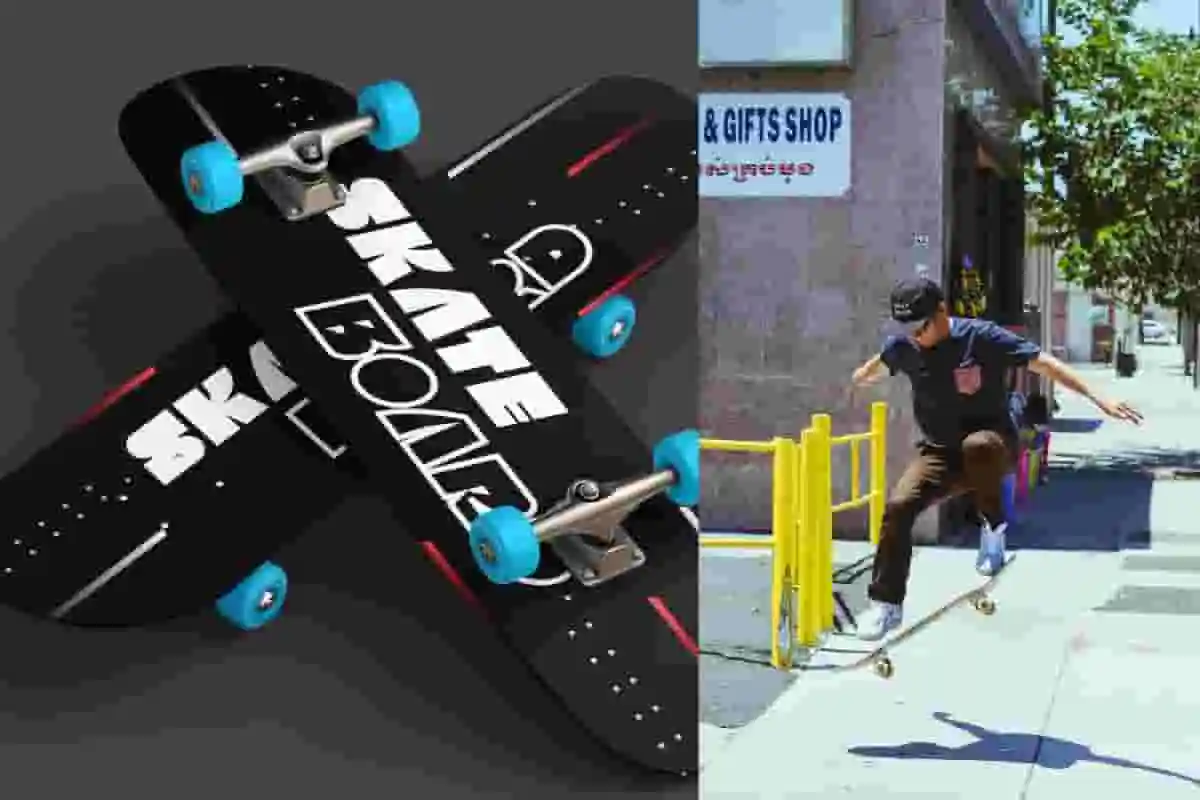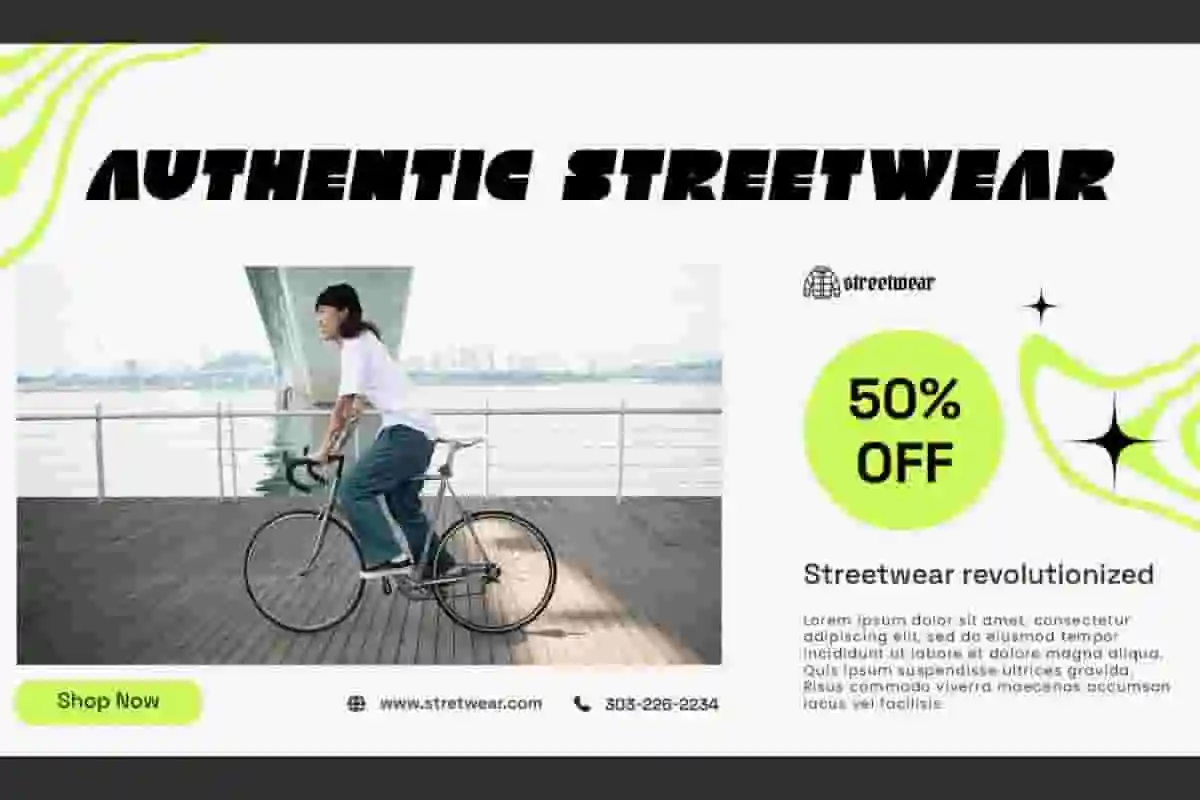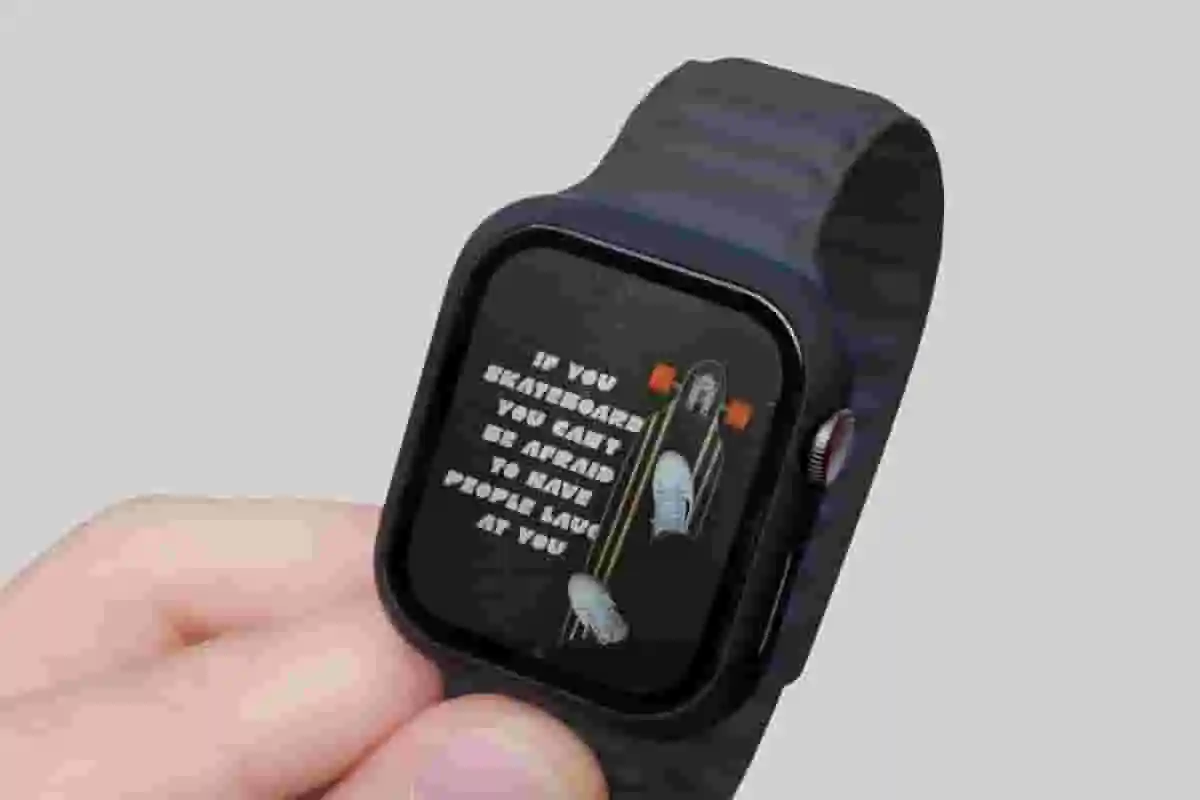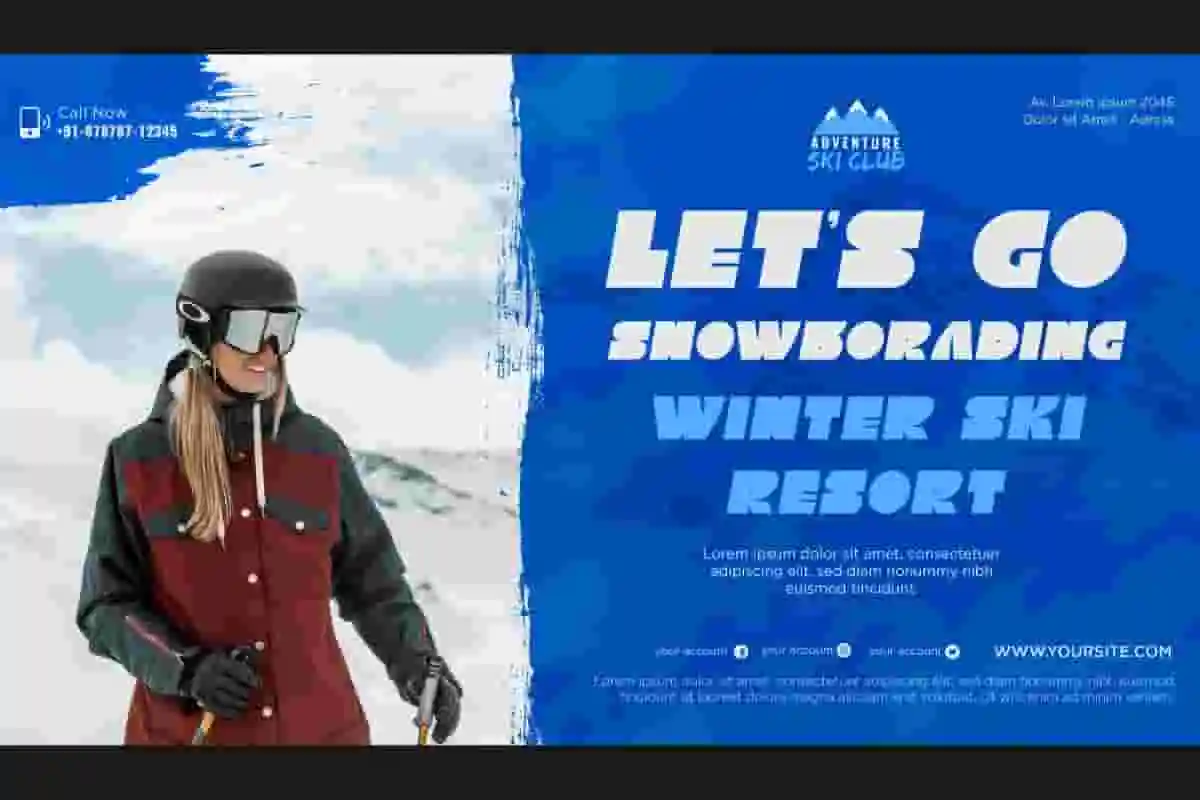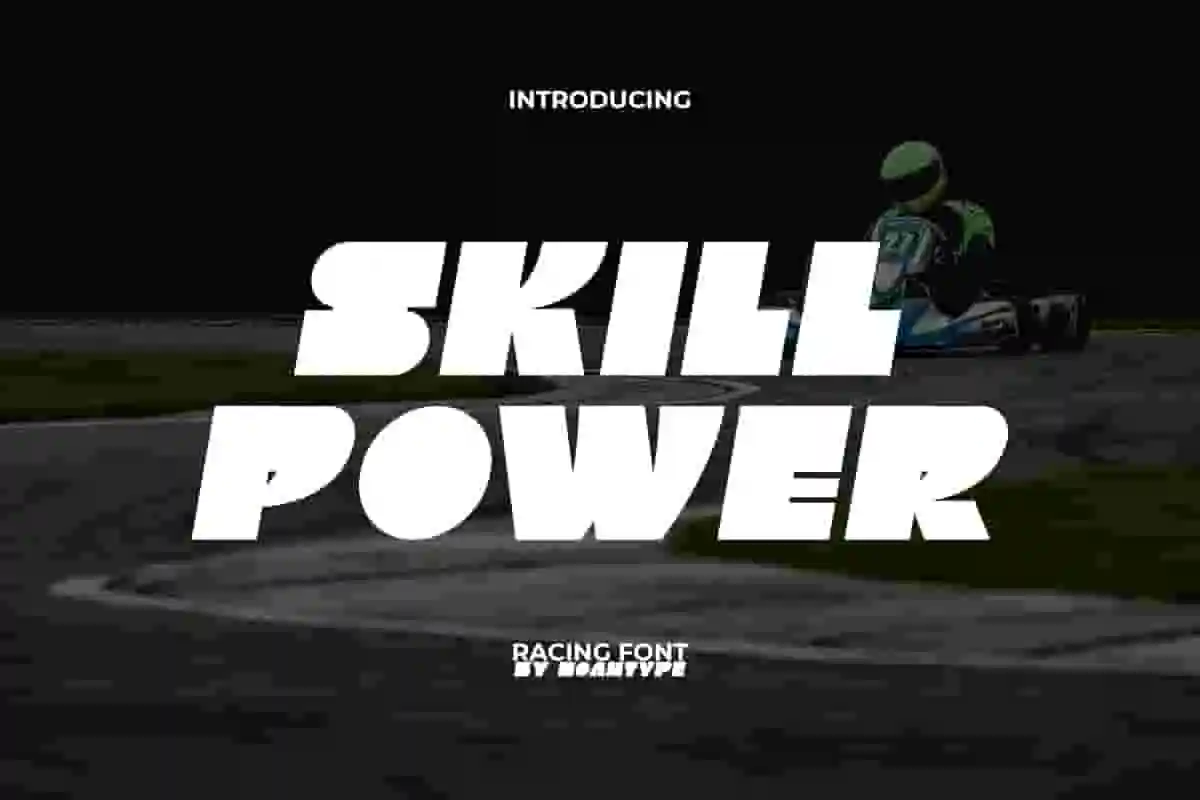
Skill Power Font is a unique racing display font by NoahType. This font has a playful look with a cartoon concept making it suitable for any type of design. This font will be suitable for a lot of projects, such as custom design, stationery, label, poster, signage, catalog, cover, quotes, website, and more!
Skill Power Font includes full set of Uppercase and Lowercase Basic Characters, Numerals and Punctuation. This adorable font will make you believe it is the perfect choice for many industries, such as sports, racing, game, automotive, fashion, advertisement, café, event organizer, printing, publishing, etc.